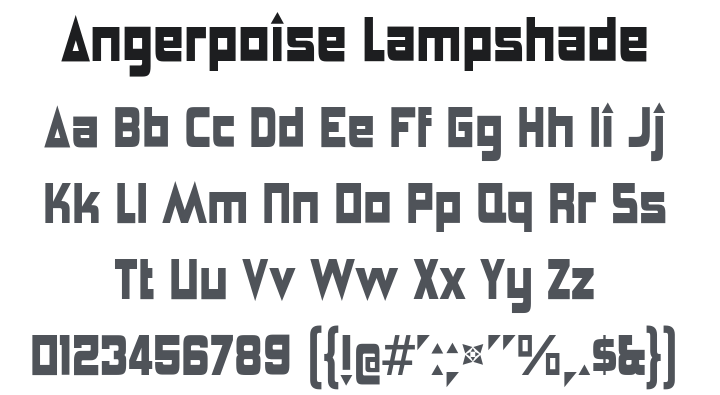
Angerpoise Lampshade Font
About Angerpoise Lampshade
Angerpoise Lampshade is an angular display typeface that merges mid-20th century sign lettering with late-1980s computer demo aesthetics — a collision of Art Deco geometry and cyberpunk attitude. Its blocky, sharp letterforms feel like they belong to an alternate universe. Perfect for sci-fi headlines, dystopian game titles, retro-futuristic posters, and edgy tech branding.